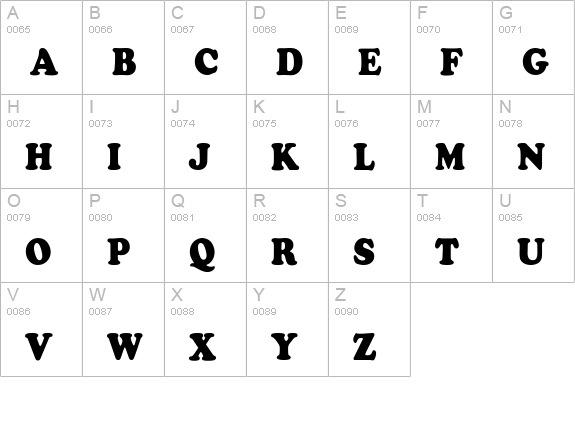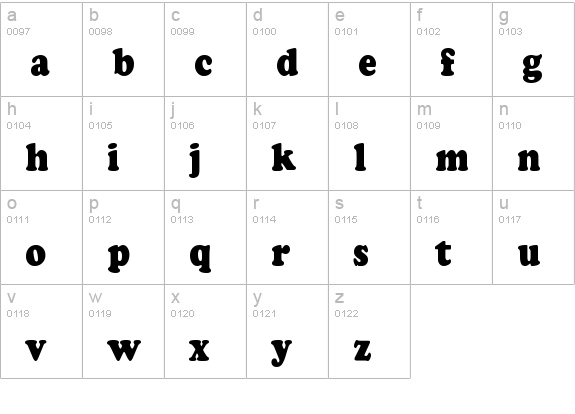
CooperCnd-Heavy Font Details
CooperCnd-Heavy is a heavy, high-impact variant in the CooperCnd typeface family \xE2\x80\x94 well suited to high-impact headlines, posters, and display advertising.
CooperCnd-Heavy font is a bold and impactful typeface that exudes strength and confidence. Its condensed design adds a touch of modernity and sophistication to any project. The sturdy letterforms and strong vertical lines make this font perfect for headlines, titles, and other display purposes. What makes CooperCnd-Heavy font even more appealing is that it is free to download at FontsMarket.com. This means you can easily access and use this high-quality font without any cost. Whether you're working on a branding project, poster design, or website, CooperCnd-Heavy font will make a bold statement and leave a lasting impression. Elevate your designs with this versatile and stylish typeface today!